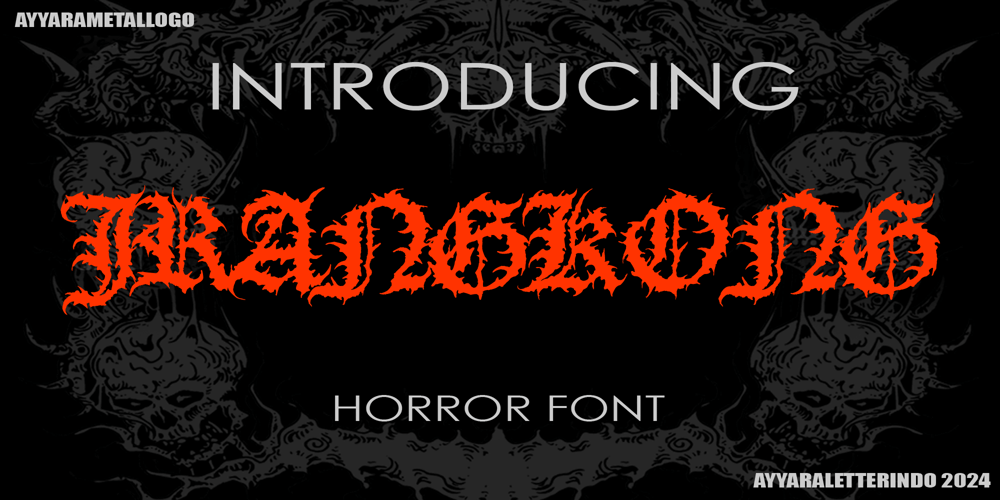
Jrangkong Font Family was designed by published by Ayyara Letterindo. Jrangkong contains 1 styles and family package options. Jrangkong is a blackletter typeface font that can be used for logos, branding, poster, flyer or any media promotions for your creatives activities. You can also immediately make your horror movie or halloween poster with the help of this unique font. Combine it with any unique halloween ornaments and make your cool design with easy!